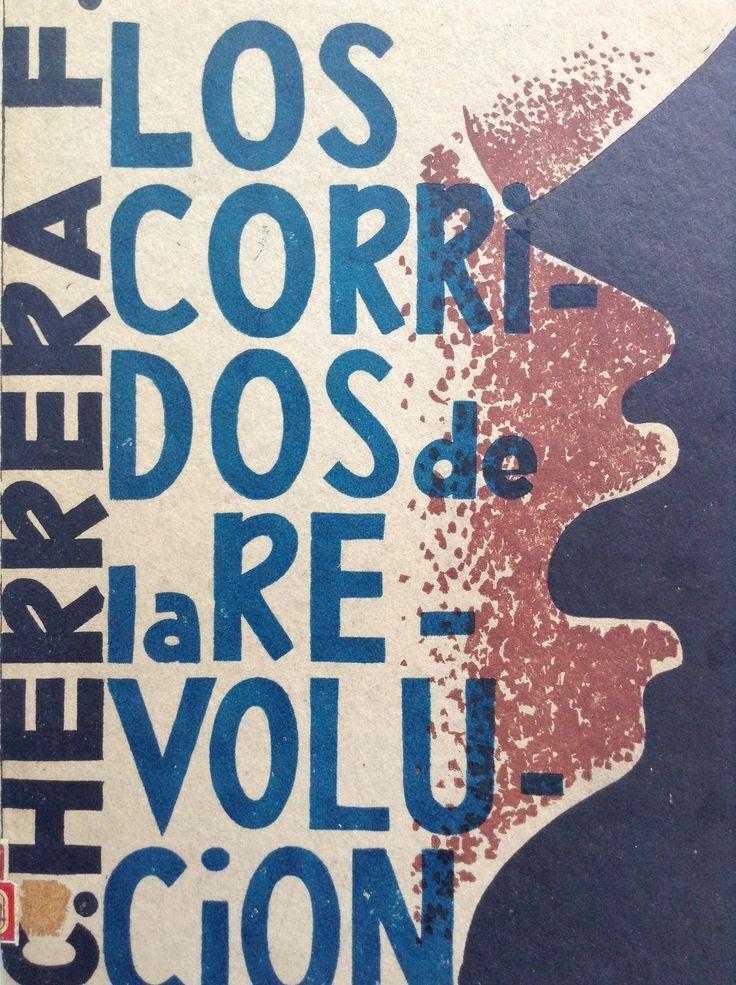
Font identification: 'LOS CORRiDOS'
Another font, we're trying to find a match to is this old poster we found on Pinterest. Not sure of the date/provenance. We're keen to find a font that has this hand-drawn quality - particularly for the capitals in the paler blue - especially the 'R' and 'O' of 'LOS CORRiDOS'.